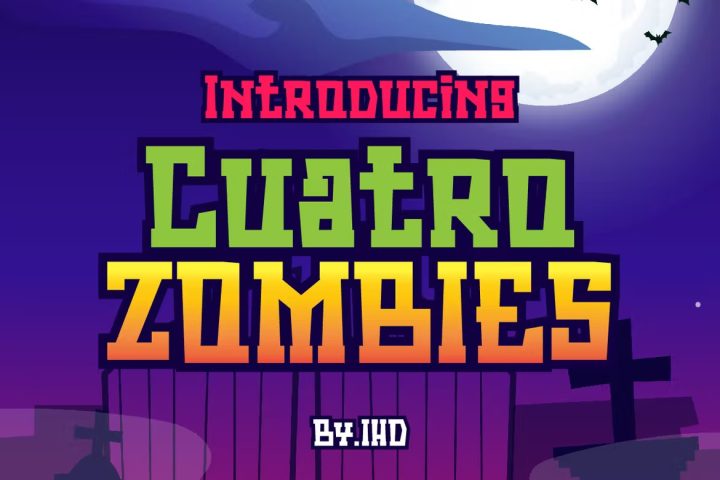
Cuatro Zombies Display Font
Cuatro Zombies font is our new item that suitable for your Posters.
Great for Logo, Poster, Sticker, Jersey, Invitation Card, Brochure, etc.